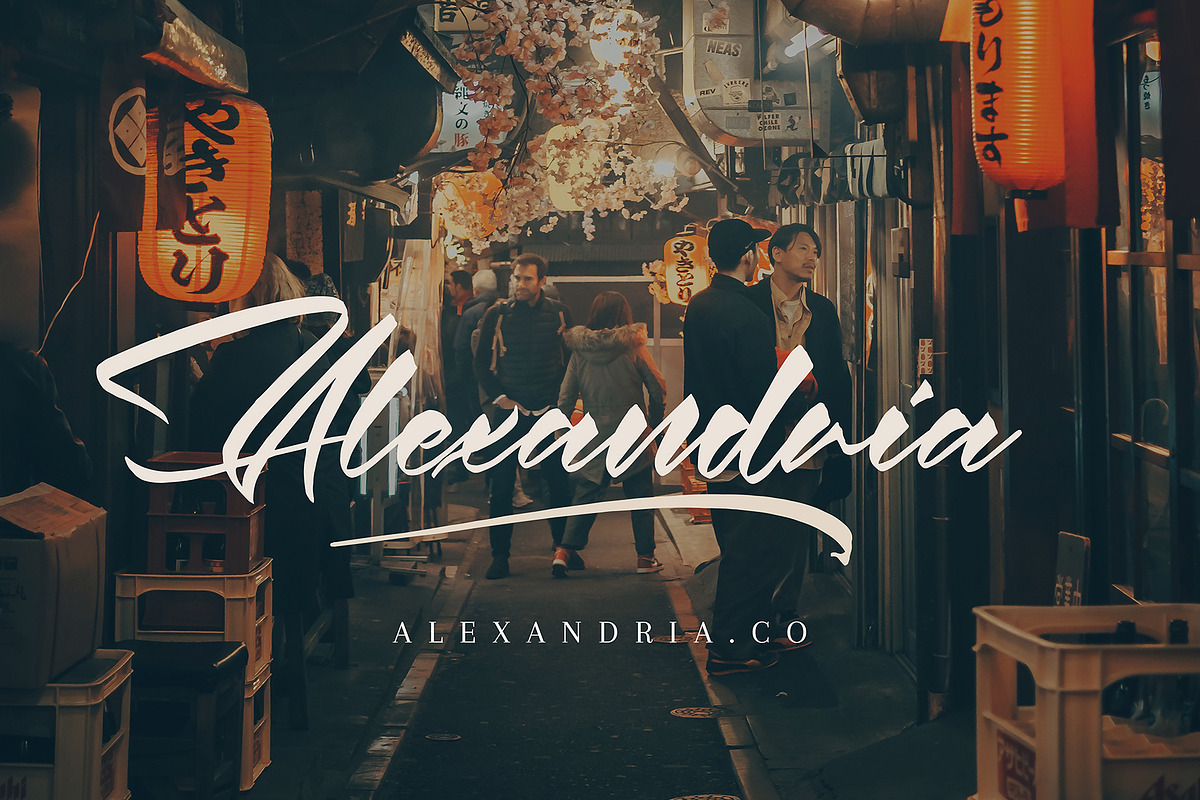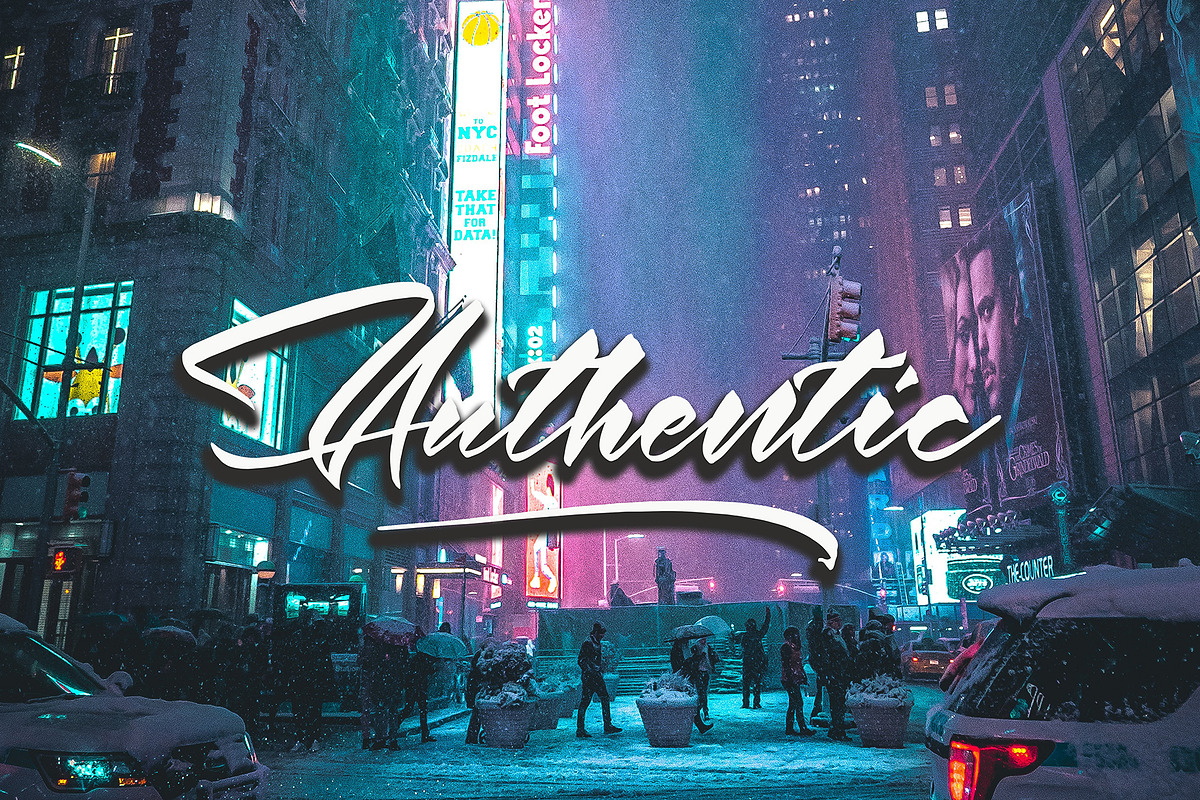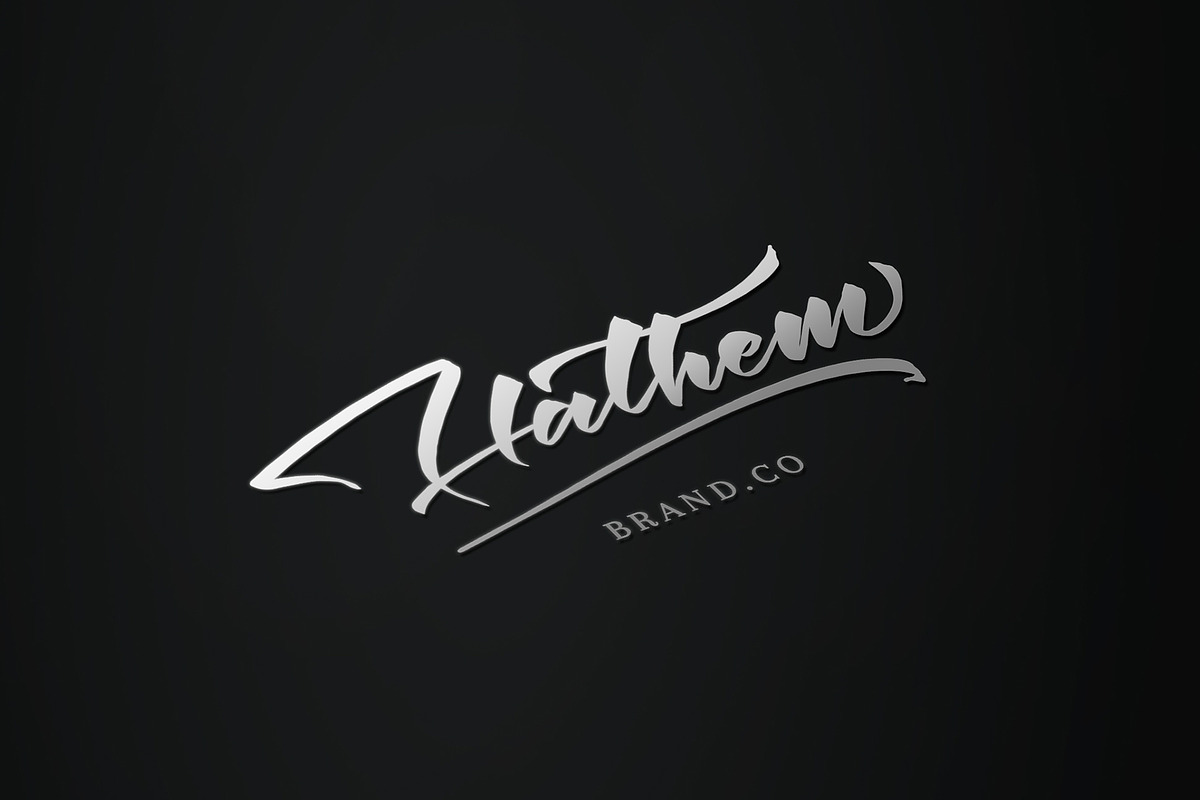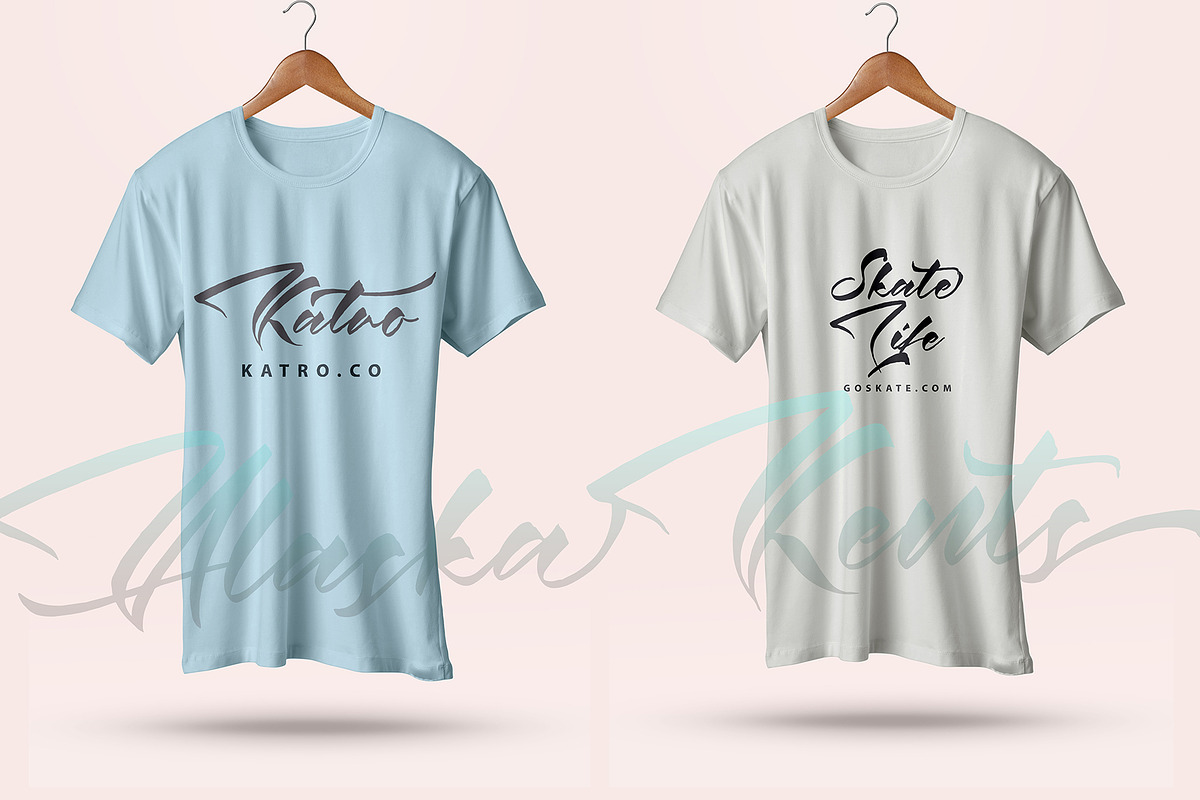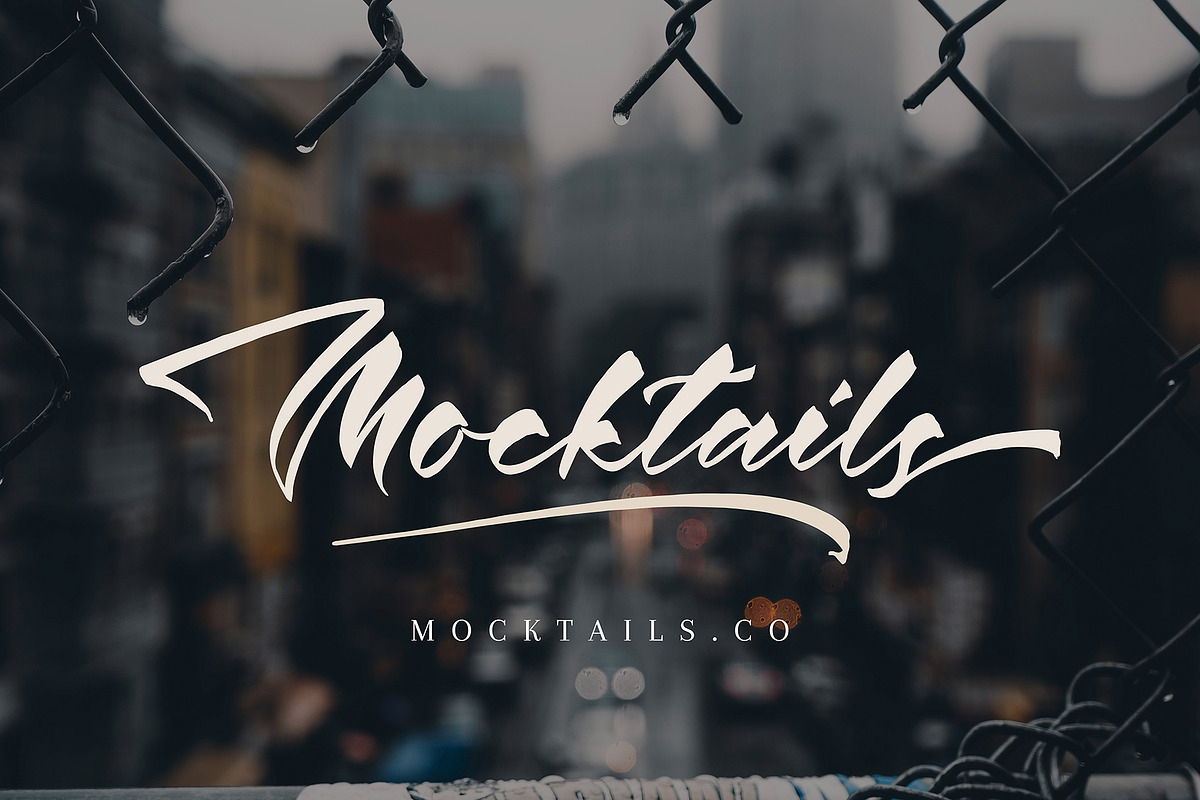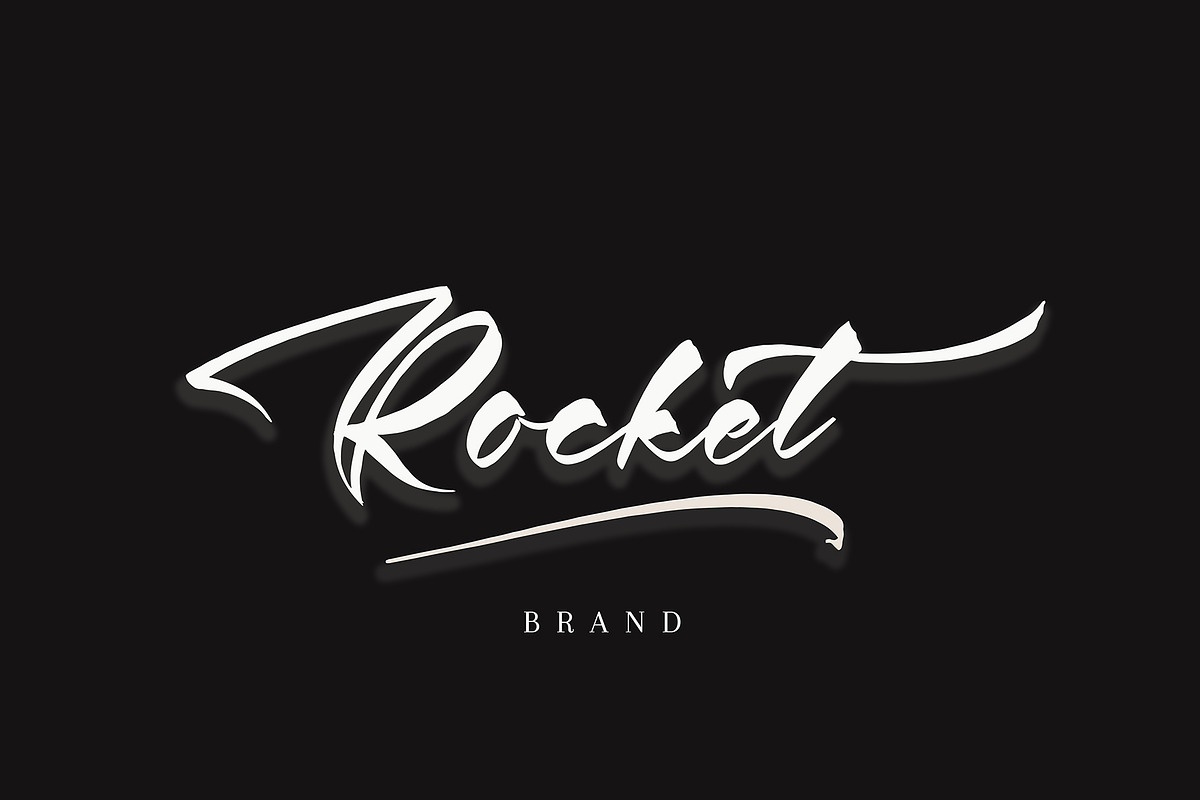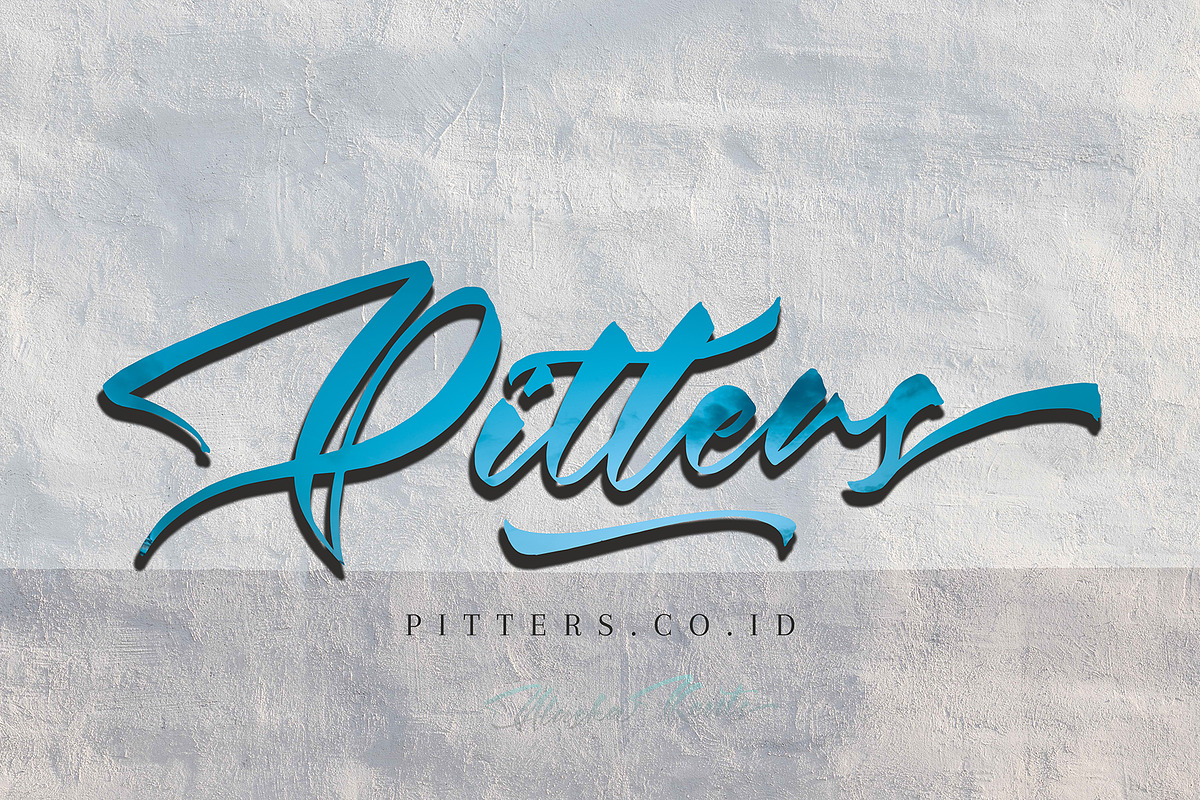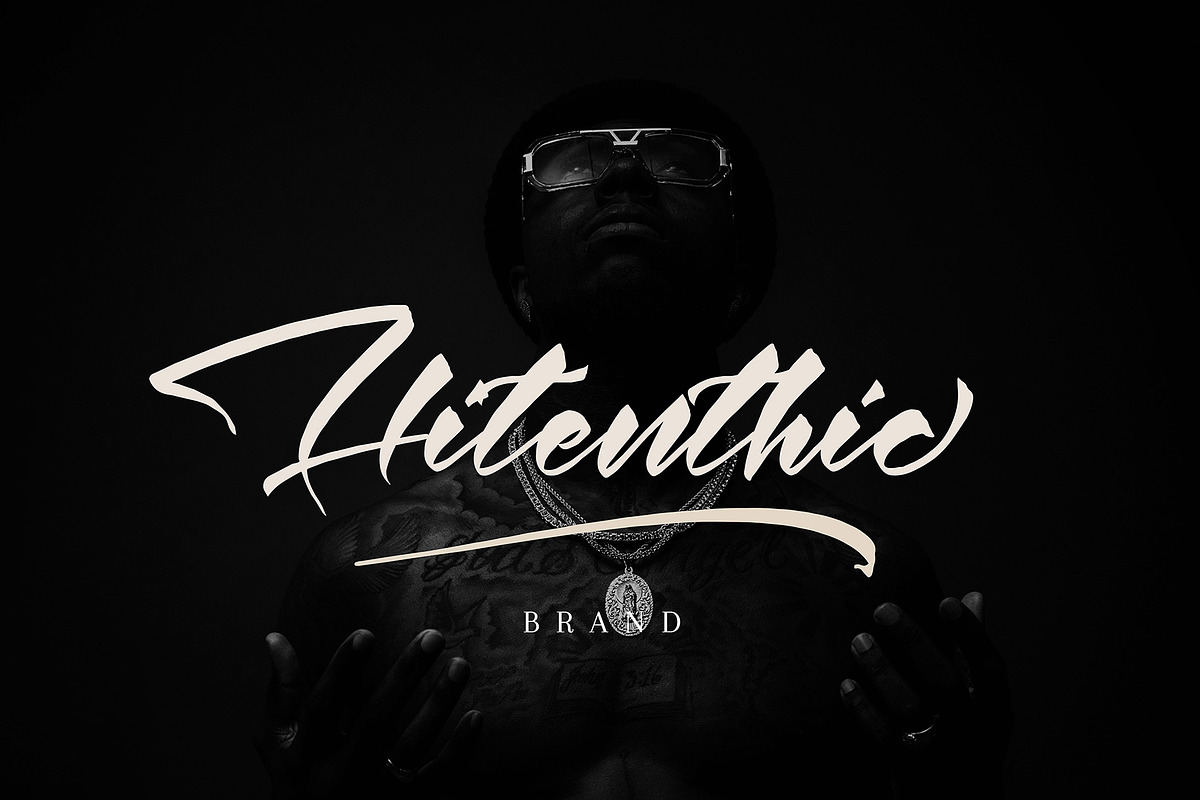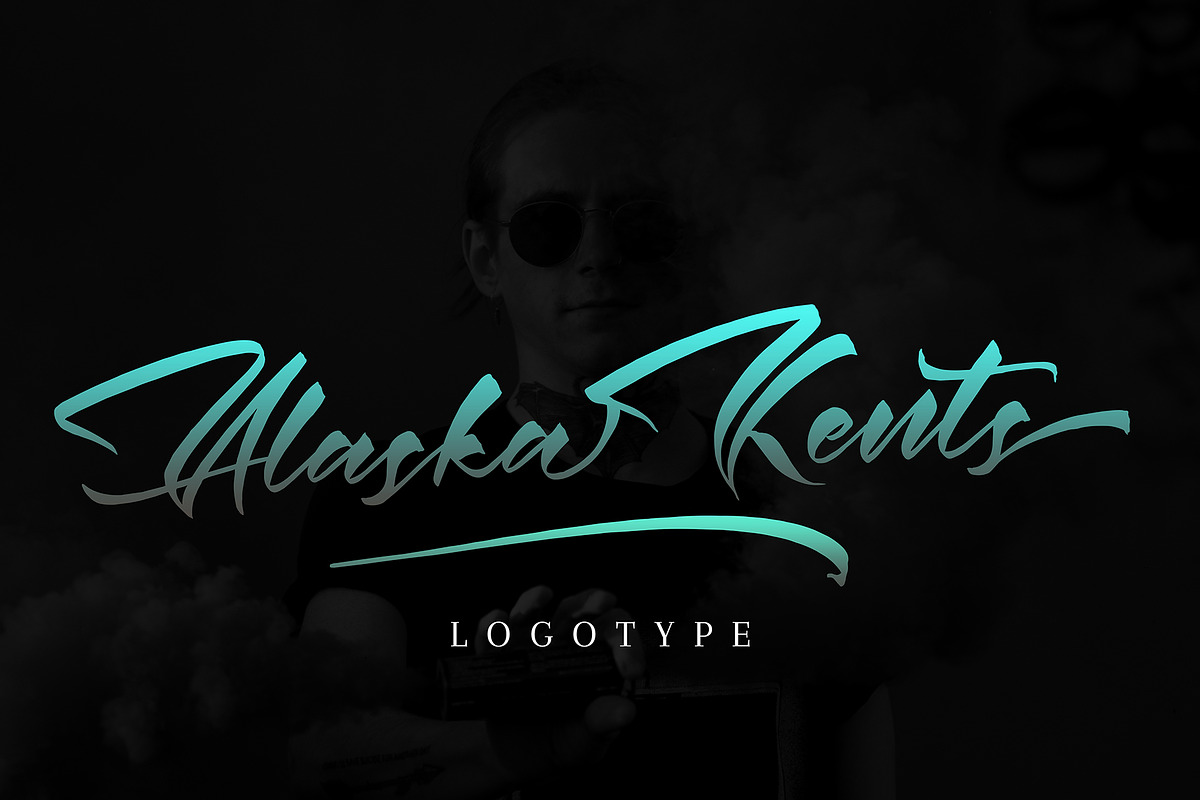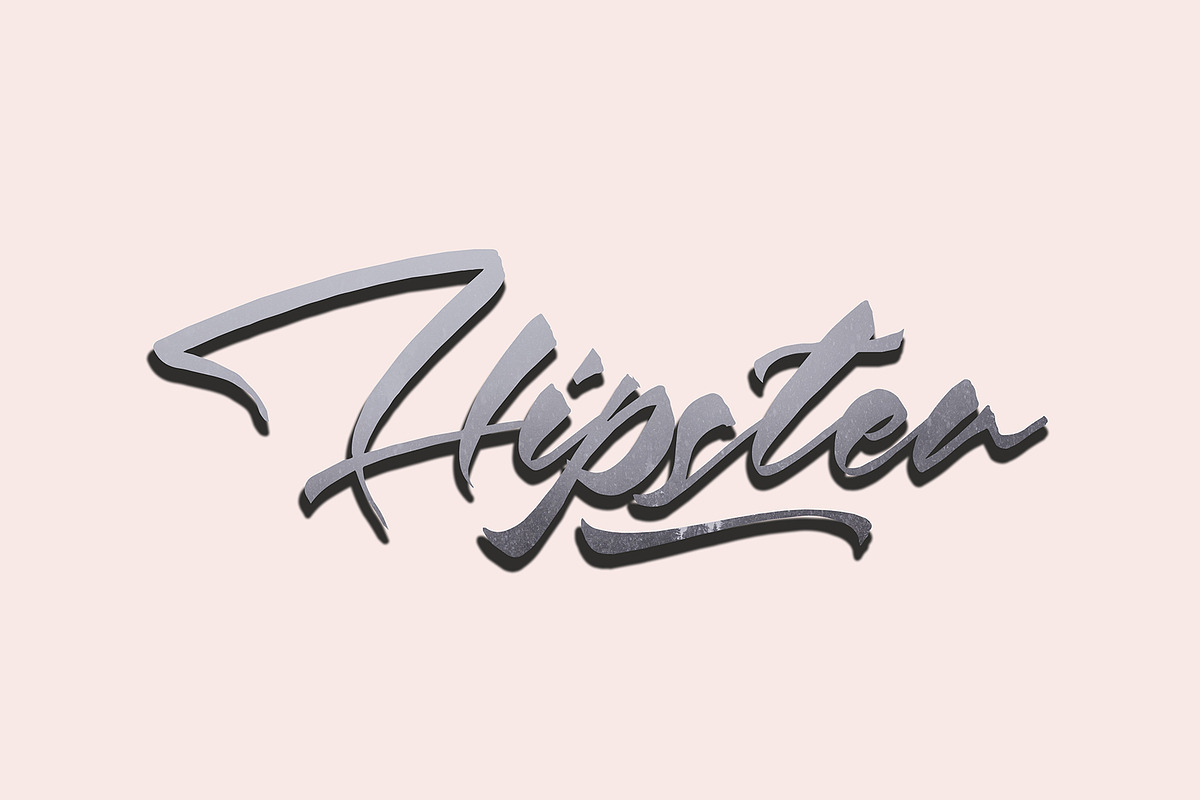
Alaska Kents logotyype, this font will perfect for many different project ex: quotes, logo, blog header, poster, banding, fashion, apparel, letter, invitation, stationery, etc...